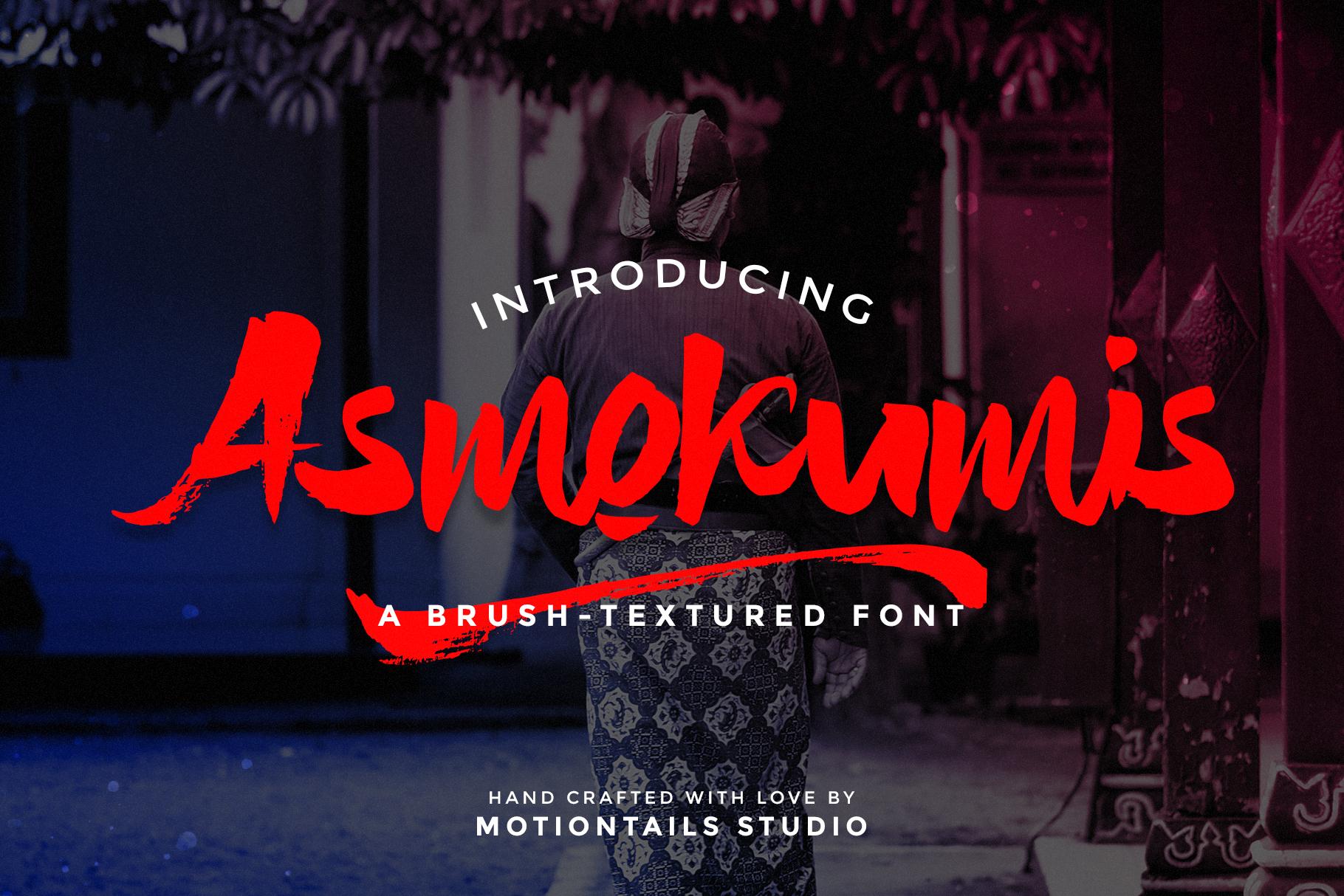
Asmokumis Font Description
Asmokumis is a great display font, carefully handcrafted to become a true favorite. Its casual charm makes it appear wonderfully down-to-earth, readable and, ultimately, incredibly versatile. Asmokumis will look outstanding in any context, whether it’s being used on busy backgrounds or as a standalone headline!